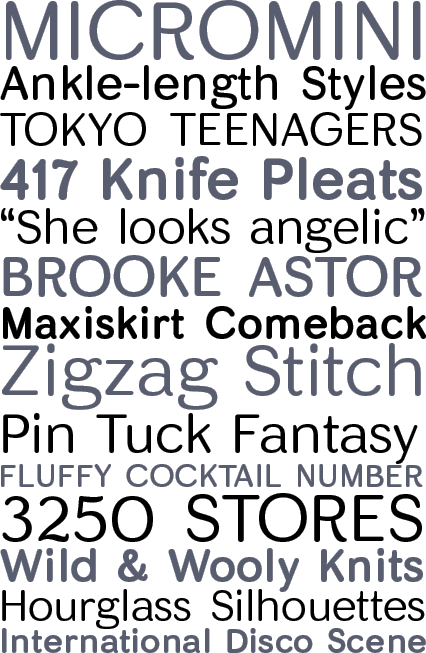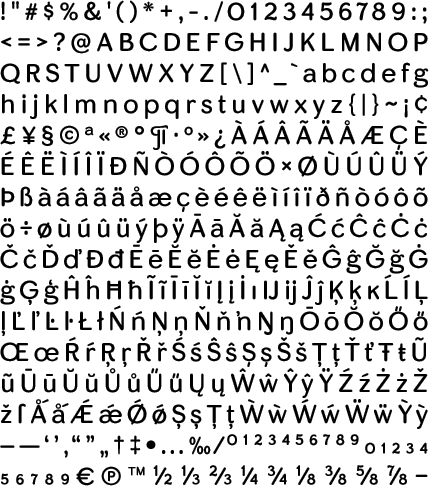
skirt
Skirt picks up where conventional rounded sans serifs let designers down. Effeminate but classy, Skirt is distinguished by bespoke design and finishing touches to lend an individual feel to compositions, without being sassy. Proportions are neat and the numbers are sweet. Like a lady with white gloves, the lower case “a” sports a proper curled tail, and the tasteful open tail binocular “g” will get you and your clients upstairs at the Savoy.